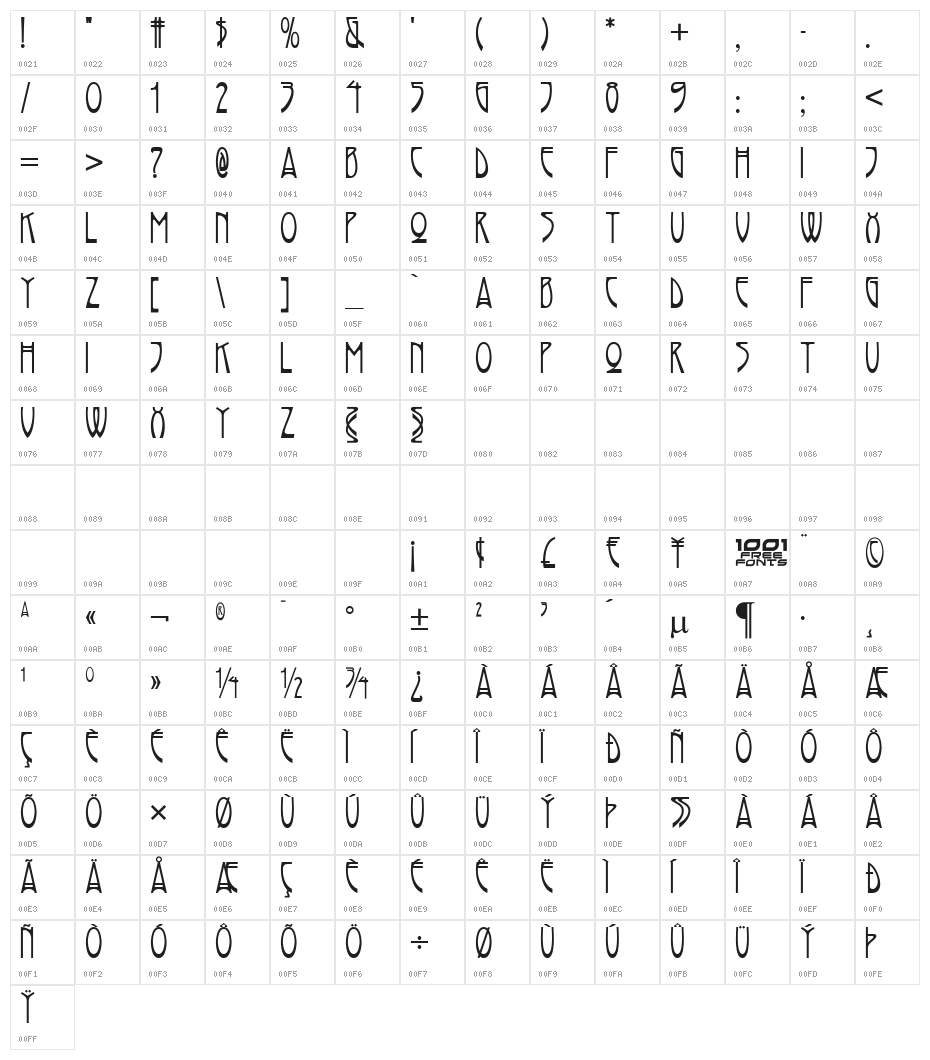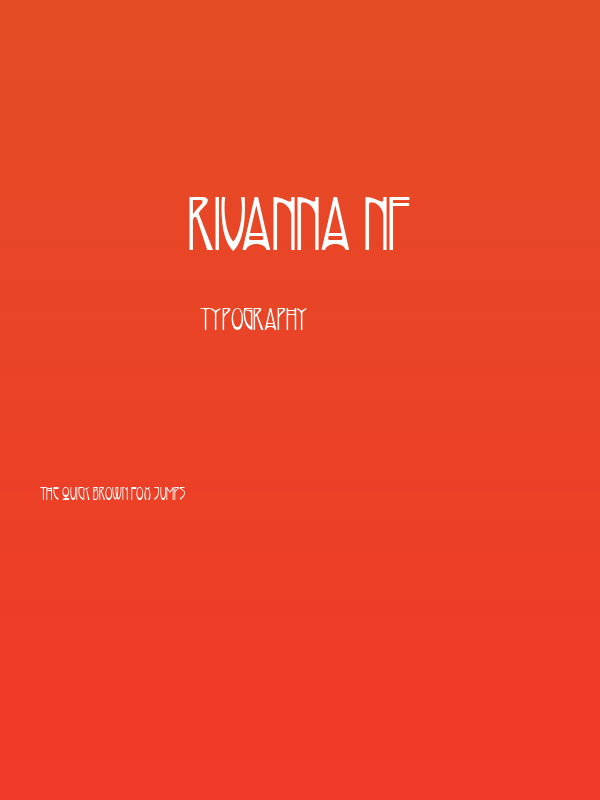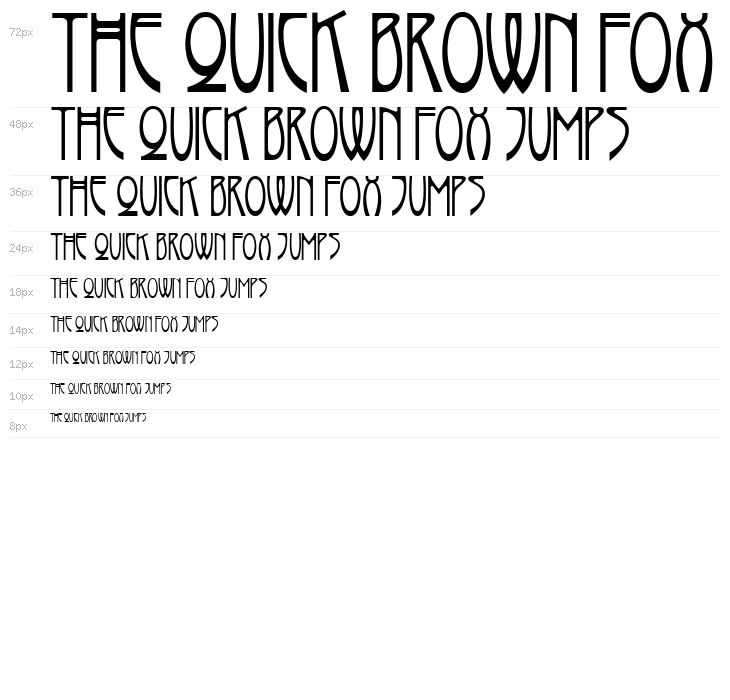
Rivanna NF Font
Rivanna NF Description
This font features a unique and artistic design with elongated and narrow letterforms that give it a distinct, modern appearance. The characters are crafted with sharp angles and smooth curves, creating a dynamic and stylish look. The uppercase and lowercase letters maintain a consistent height, contributing to a cohesive visual flow. The numerals and special characters are designed to match the overall aesthetic, ensuring uniformity across all glyphs. This font's artistic flair makes it suitable for creative and contemporary projects.
| Use Case | Logos, Posters, Creative design |
| Proposed Projects | Ideal for branding, logos, posters, and creative design projects that require a modern and artistic touch. |